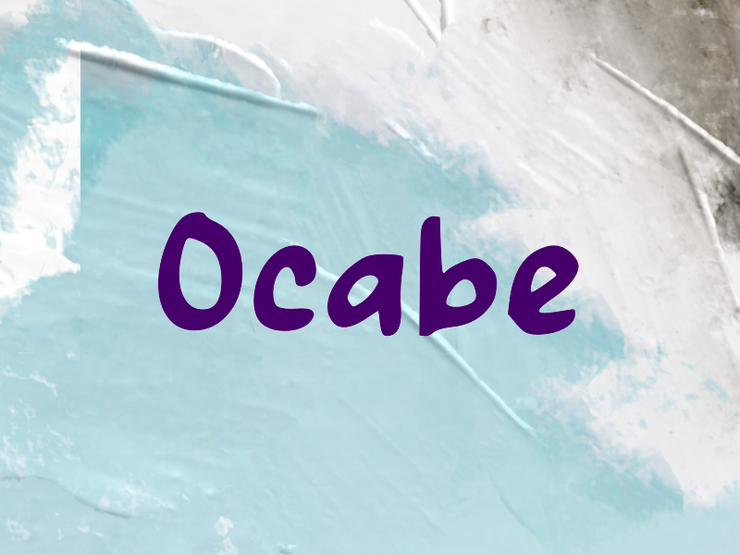
Ocabe Elegant Stylish English Font for Creative Design Projects
Ocabe is a refined and elegant English typeface designed with delicate curves, sleek strokes and well‑balanced glyph structures. Each letter features graceful shapes and clean outlines, delivering a sophisticated and premium visual style suitable for multiple creative scenarios. The font blends minimalist charm with subtle modern texture, making it perfect for brand logos, fashion posters, web headlines, e‑commerce banners, product packaging, UI text and decorative typography. Complete with full uppercase and lowercase characters, it is highly scalable and easy to customize in size, color and layout without losing its elegant details. Suitable for graphic designers, creative studios and commercial branding projects, helping you add unique refined style to all your design works.Free for Commercial Use / No Copyright